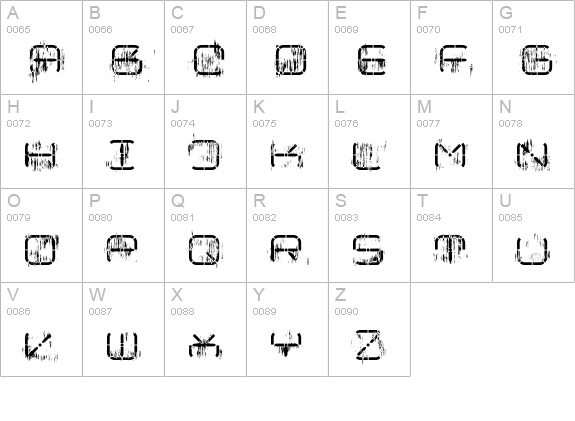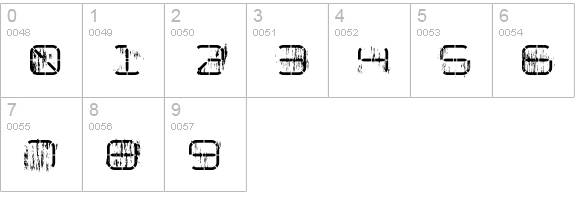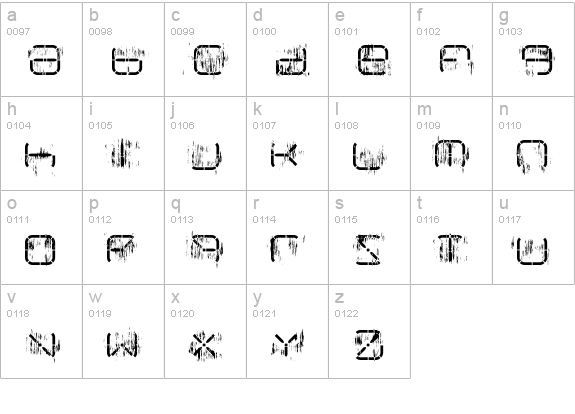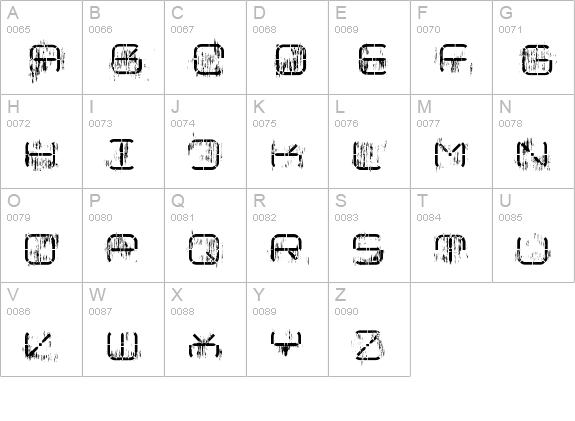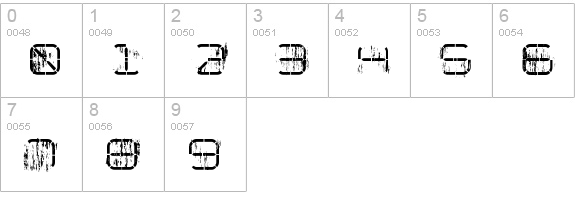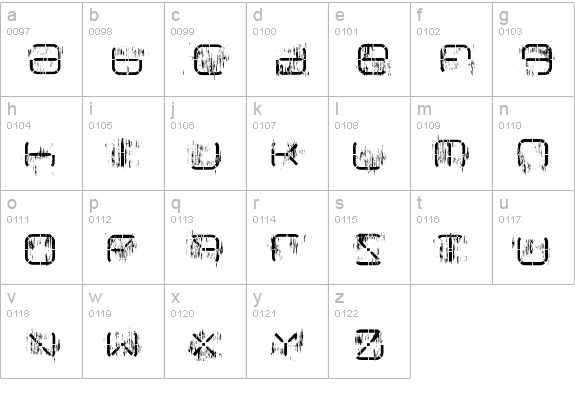
R-2014 Eroded Font Details
R-2014 Eroded font is a striking display font that will add a touch of ruggedness and authenticity to your designs. With its worn and weathered appearance, this font captures the essence of aged and eroded typography, giving your text a vintage and distressed look. Featuring a unique blend of sharp edges and rough textures, R-2014 Eroded font is perfect for projects that require a bold statement or a touch of grunge. Whether you are working on posters, album covers, logos, or any other design that needs a bit of an edge, this font will deliver. What's even better is that R-2014 Eroded font is available for free download at FontsMarket.com. This means that you can enjoy the benefits of this eye-catching font without having to spend a dime. Simply head over to FontsMarket.com, locate the font, and download it to start using it in your projects right away. Don't miss out on the opportunity to enhance your designs with the distinctive look of R-2014 Eroded font. Download it for free today and let your creativity run wild!